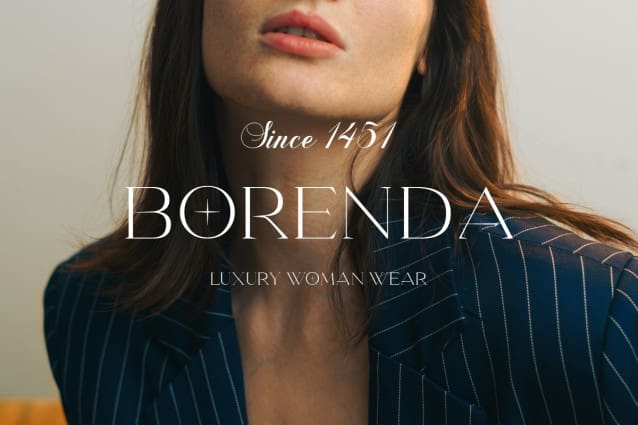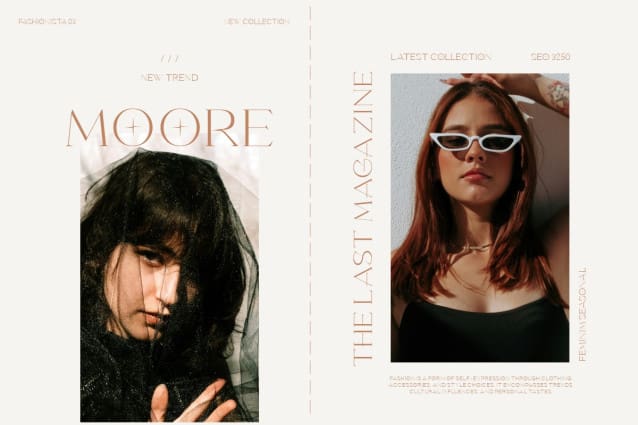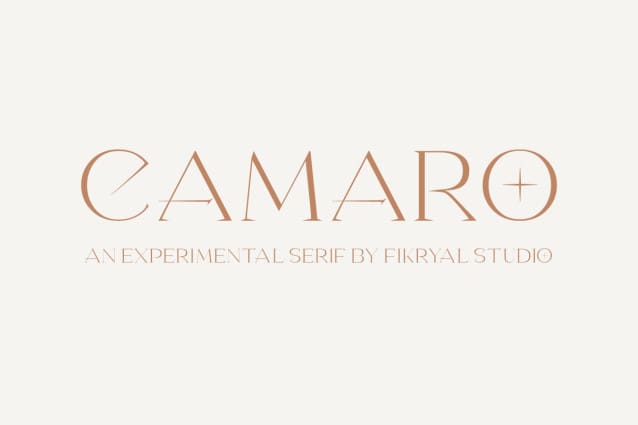
Camaro Serif Font
Camaro Serif Font – An Experimental Serif is an online innovation in the world of typography that brings the courage of experimentation and uniqueness. Carefully shaped to create a strong and challenging impression, this font features a highly experimental all-caps serif style. Each letter is designed with meticulous detail, creating an alluring and inviting atmosphere.
With a combination of unique and contemporary characters, Camaro brings a fresh, avant-garde feel to typographic design. Boldness in the exploration of form and proportion provides unexpected characteristics, making it suitable for a variety of creative projects that require a modern and innovative touch.
With its ability to stand out among other fonts, Camaro Serif – An Experimental Serif is the perfect choice for designers who want to explore the conventional boundaries of typography and create bold, striking designs.